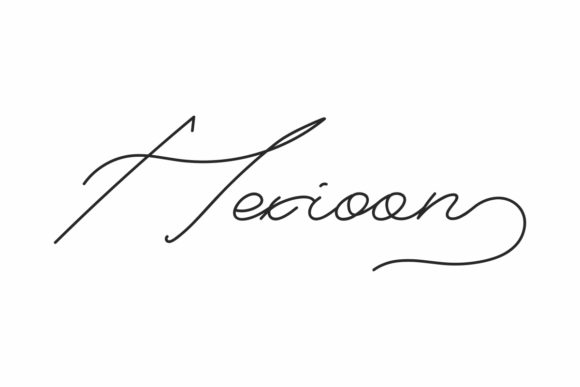
Welcome to the world of Hexioon, a script font that embodies elegance and grace. Its clean, thin, and smooth lines will bring a touch of sophistication to any design project. Whether you're creating logos, branding materials, or eye-catching headlines, Hexioon will leave a lasting impression.
Enter the realm of Hexioon and let your creativity soar. This font is a masterpiece of digital calligraphy, meticulously crafted to evoke a sense of timeless beauty. Each letter is a work of art, flowing effortlessly from one stroke to the next. Whether you're designing wedding invitations, greeting cards, or social media posts, Hexioon will add a touch of magic to your words.
With Hexioon, your designs will radiate professionalism and poise. Its refined characters command attention, making it the perfect choice for logos and branding. Imagine your company name or tagline rendered in the exquisite lines of Hexioon, exuding confidence and leaving a lasting impression on your clients.
Unleash your imagination and explore the endless possibilities of Hexioon. Its PUA encoding grants you access to a treasure trove of glyphs and swashes, inviting you to add intricate details and flourishes to your designs. Experiment with different combinations and arrangements to create unique and captivating compositions that will set your work apart from the ordinary.
Dive into the world of Hexioon and discover a font that transcends the boundaries of ordinary typography. Its enchanting script will transform your designs into breathtaking works of art, leaving your audience spellbound and eager for more. Hexioon is not just a font; it's an experience that will elevate your creativity to new heights.